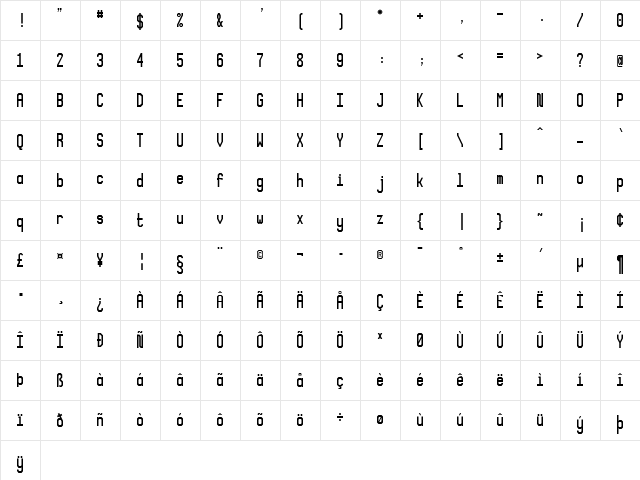
XLMonoAlt Regular
Design Context for XLMonoAlt Typeface
XLMonoAlt uses fixed-width spacing throughout, giving it the structured, systematic character associated with coding environments and technical documentation.